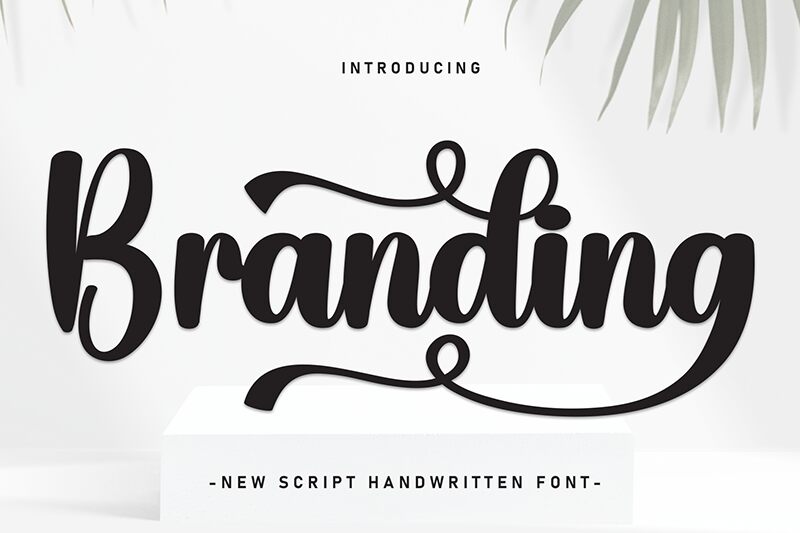
Branding
Branding font is a free brush script font by Scratchones which accentuates its beauty with a smooth flow appearance. This cursive typeface will impress creatives with its elegant visual style and contemporary readability. To most eyes, this font offers a quality of separate artistic elements and an iconic sophisticated general appeal.
Together, all these qualities make Branding suitable for branding, signatures, photography watermarks, advertising titles, book covers/titles, movie posters/cover designs, logos & logotypes creation, online advertisement features or various social media posts ideas. Labels and packaging are amongst other print-friendly use cases for this display font.